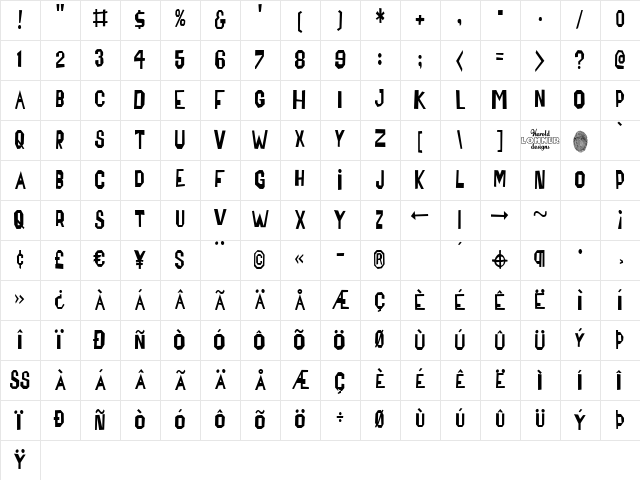
Bensfolk Condensed Regular Free Font
Bensfolk Condensed Regular
Copyright: BENSFOLK CONDENSED computer font v2.5 ©2000 2002 Harold Lohner "  " www.haroldsfonts.com Adapted from the work of Ben Shahn, in turn adapted from "folk" or "amateur" alphabets. Font originally devel
Design Context for Bensfolk Condensed
Bensfolk Condensed is a composed and adaptable typeface that performs quietly and consistently across a wide range of design contexts. Its narrow stance lets it pack a punch even in space-constrained designs.